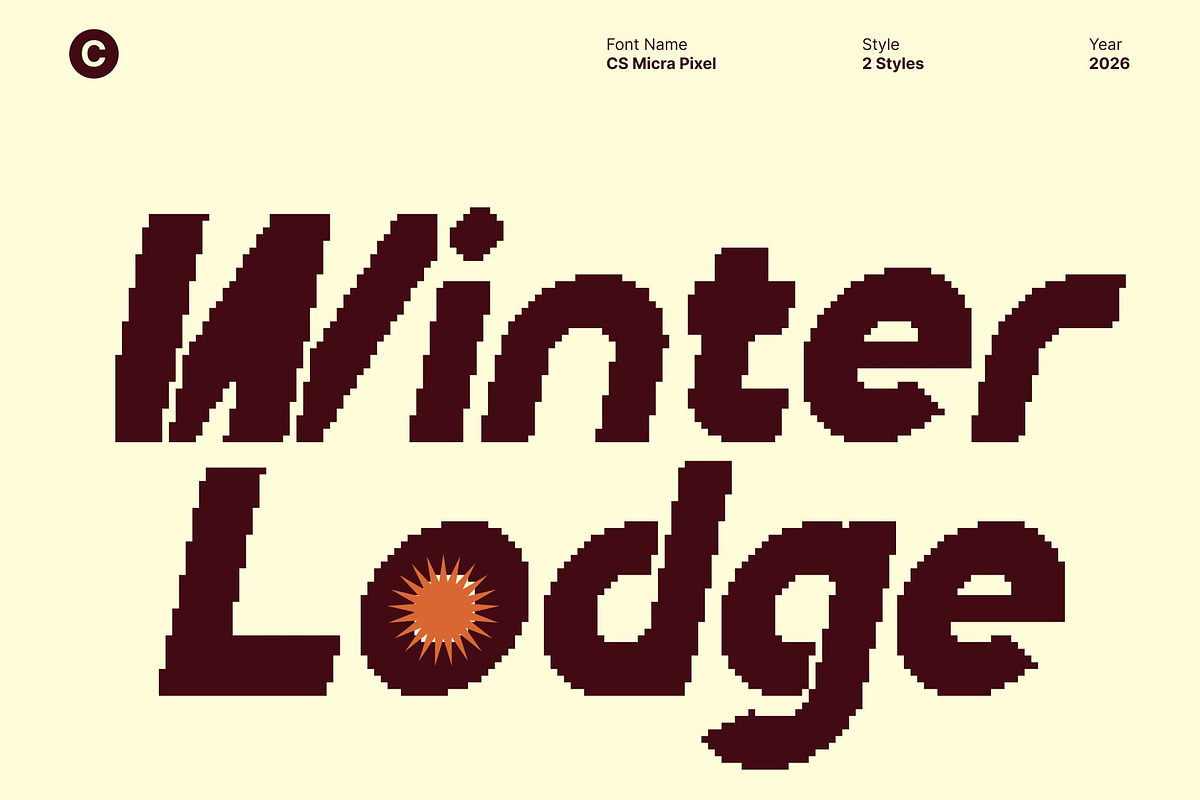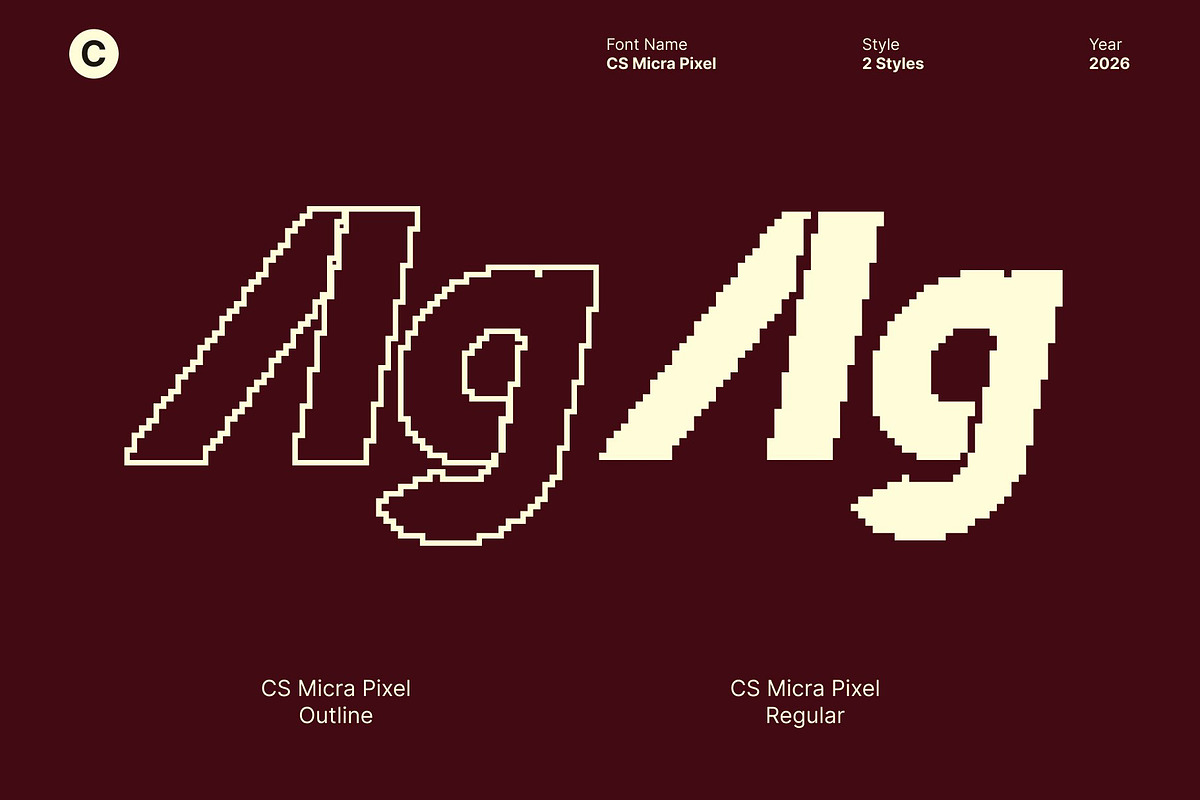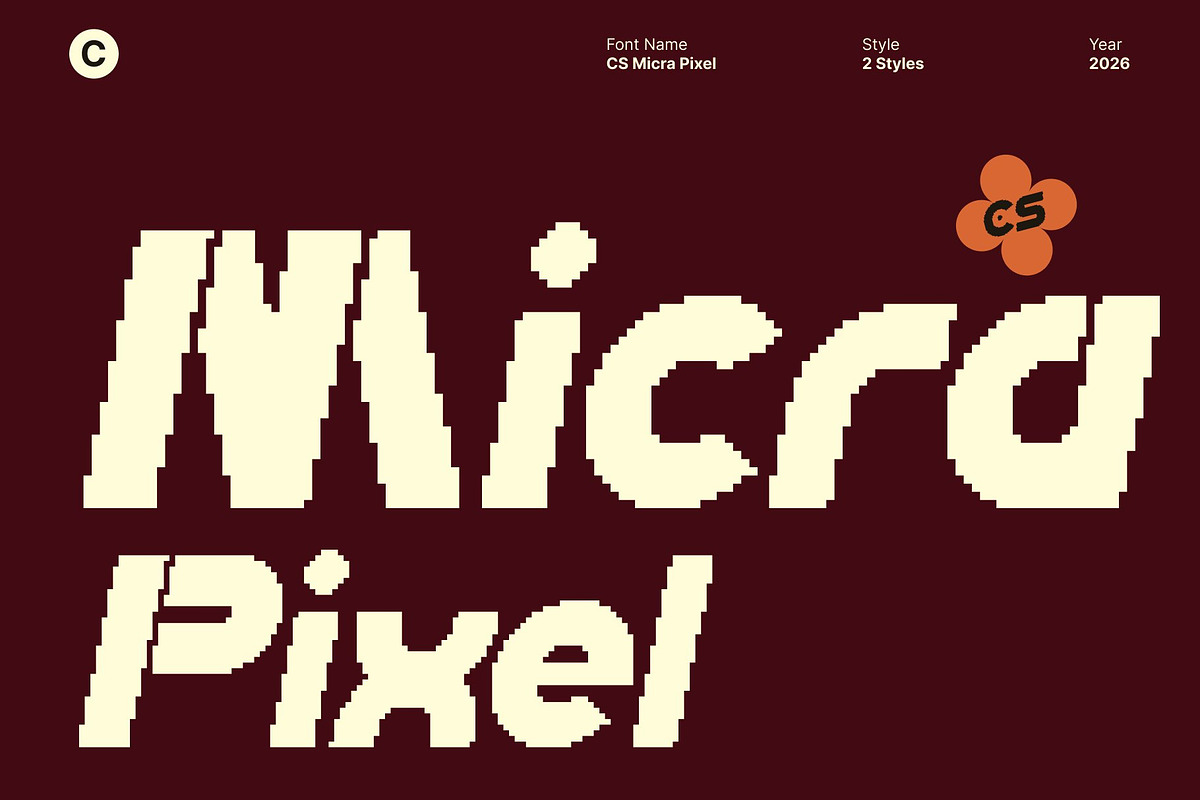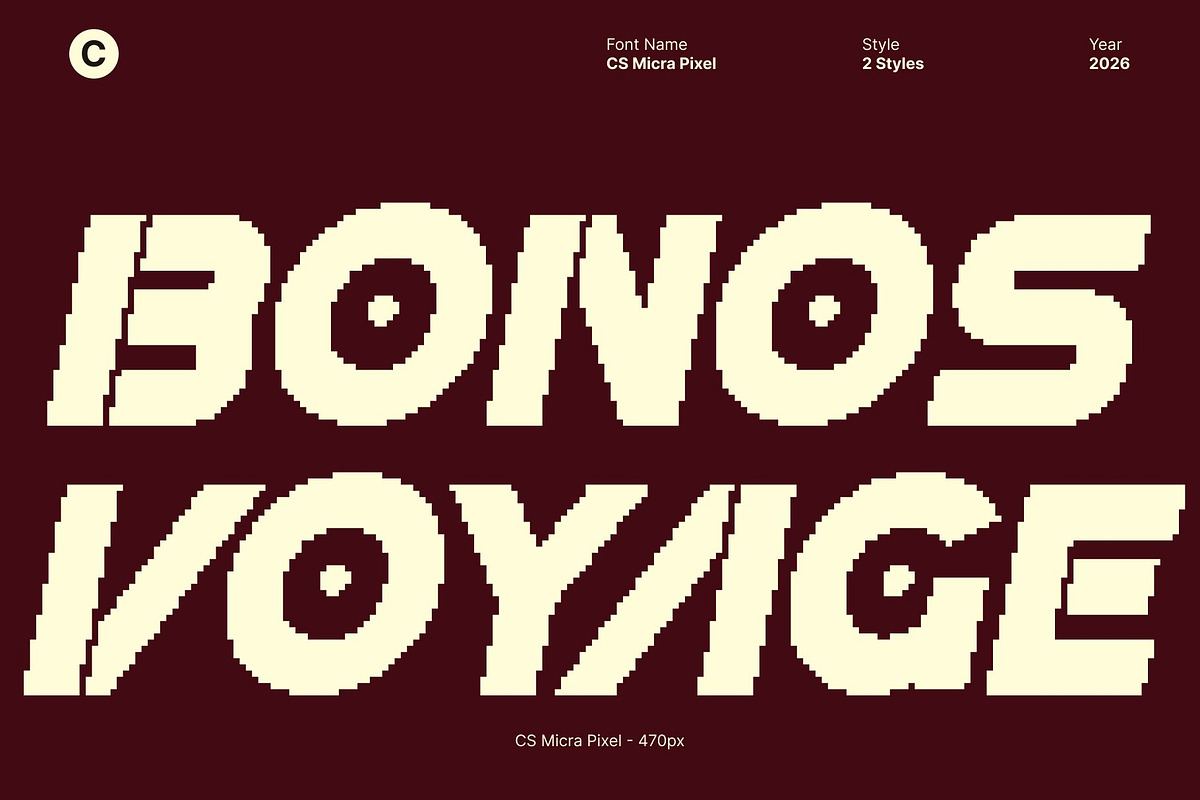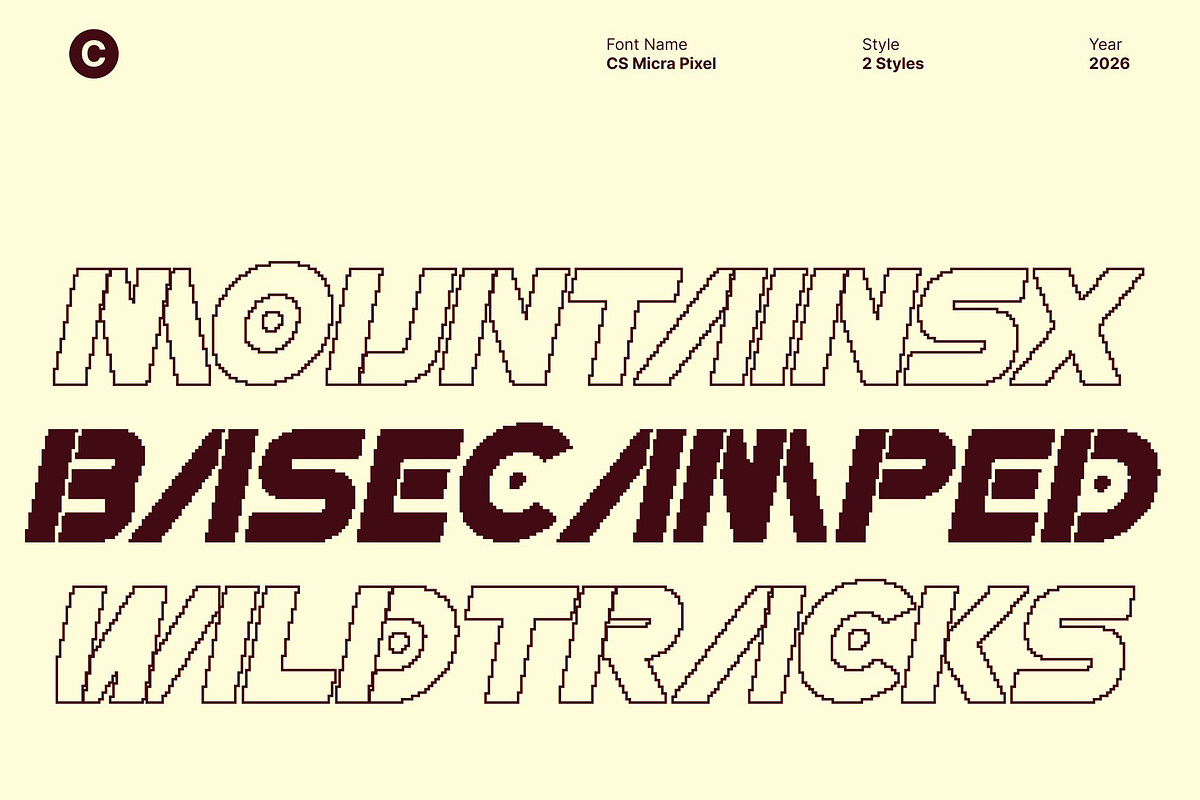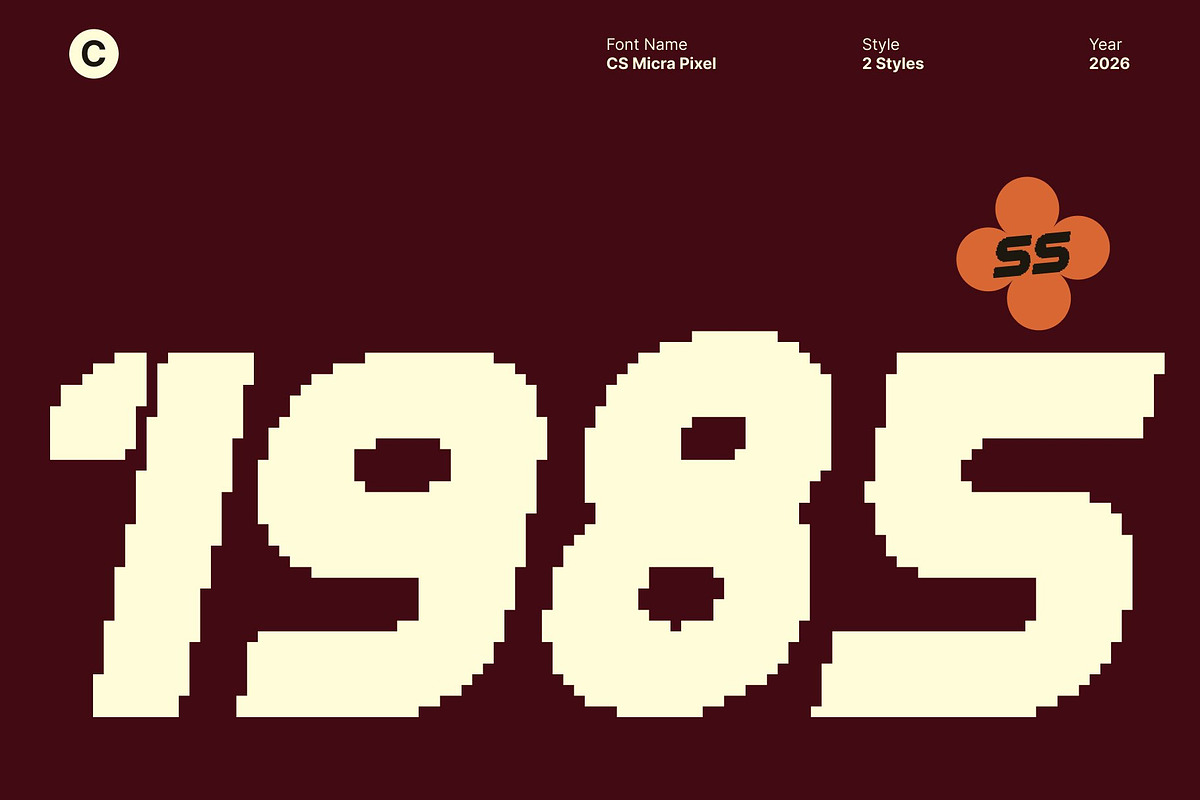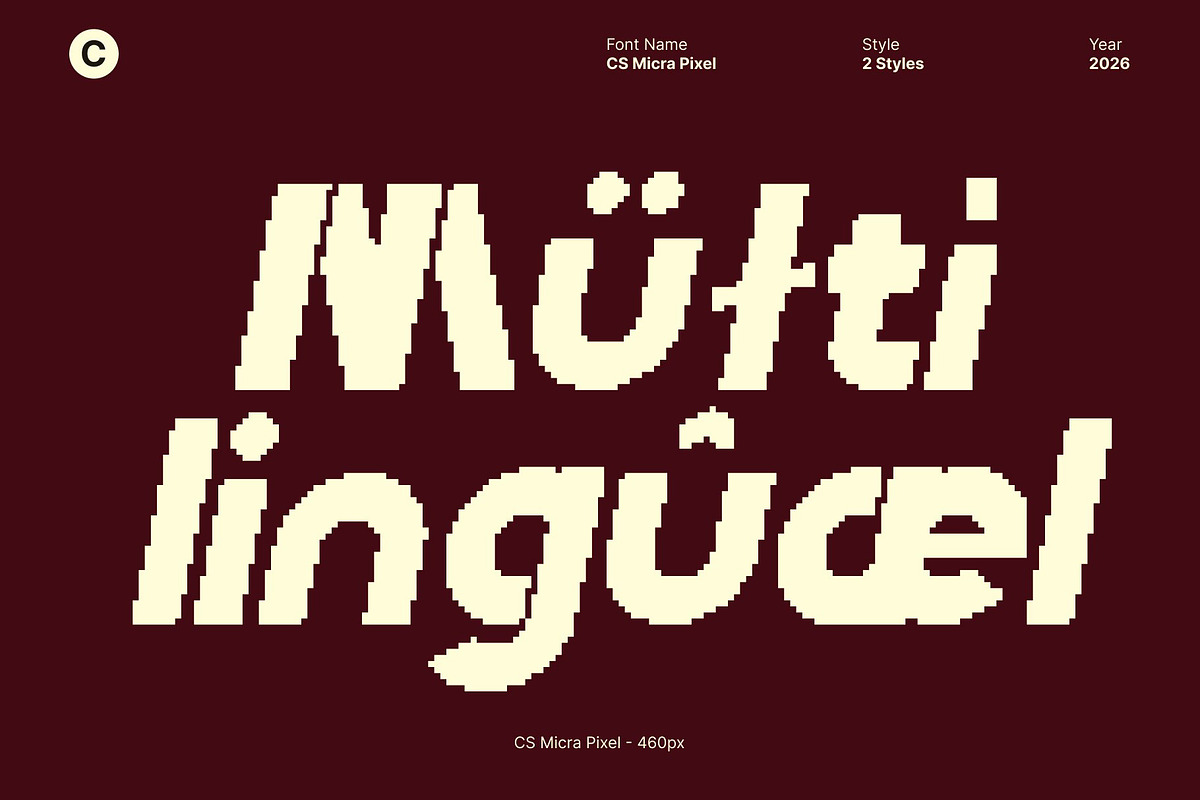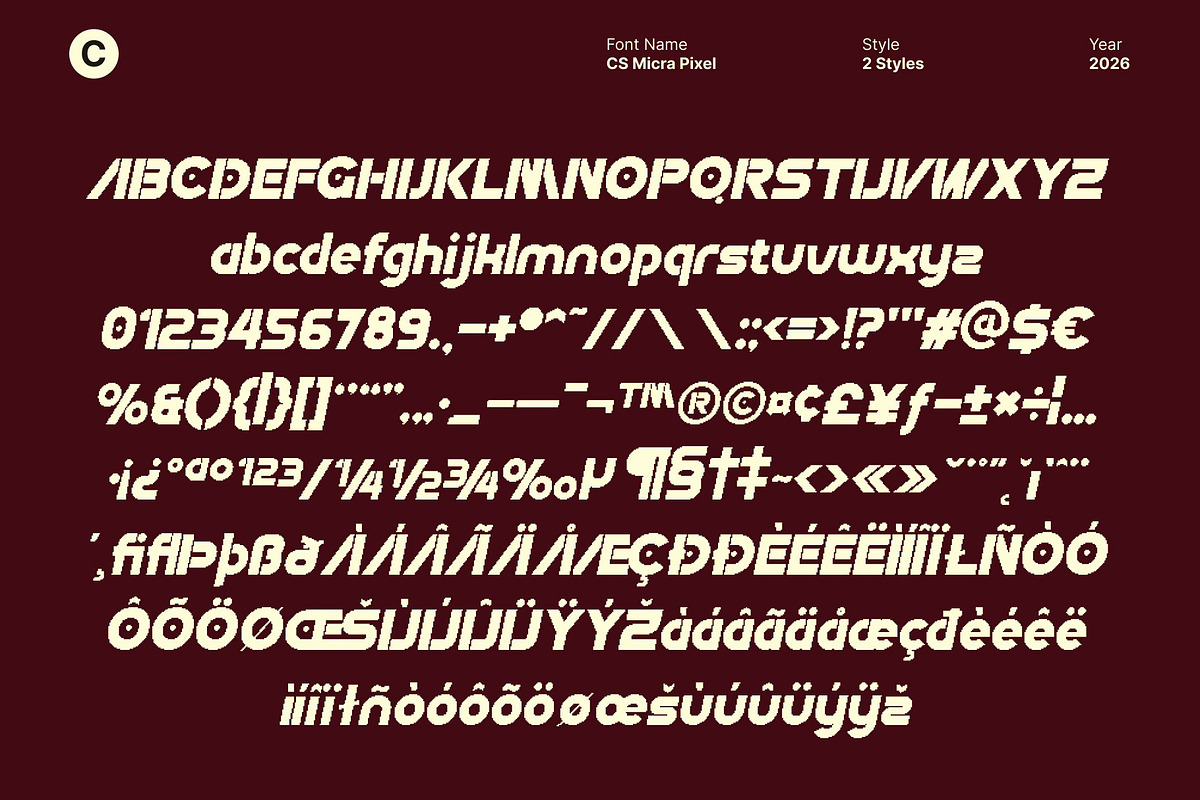
CS Micra Pixel
CS Micra Pixel – Futuristic Geometry with Digital Energy
Futuristic Display Font with Techno Pixel Precision This is a bold futuristic display font built on a strong techno foundation and enhanced with pixel-inspired construction. Combining industrial influence, clean geometry, and digital detailing, it delivers sharp, confident letterforms that feel modern, powerful, and forward-looking. Its striking appearance commands attention and communicates innovation with clarity.
Geometric Pixel Structures with Industrial Strength Defined by precise angles, solid lines, and pixel-based geometry, this font reinforces a mechanical and technical identity. Each character is carefully engineered to feel structured and intentional, creating a sense of stability and industrial strength that excels in high-impact display use.
Experimental Tech Style for Bold Visual Expression This font embraces experimental typography through unconventional forms and digital geometry. The pixel elements introduce a dynamic rhythm inspired by futuristic interfaces and retro-tech systems, allowing designers to push visual boundaries while maintaining a strong, modern aesthetic.
Perfect for Branding, Logos, Posters, and Tech Visuals Ideal for branding, logo design, posters, promotional materials, and futuristic concepts, this font is a powerful choice for technology brands, creative studios, sci-fi visuals, and urban design. Its techno-industrial character and digital edge ensure designs feel innovative, bold, and visually striking.